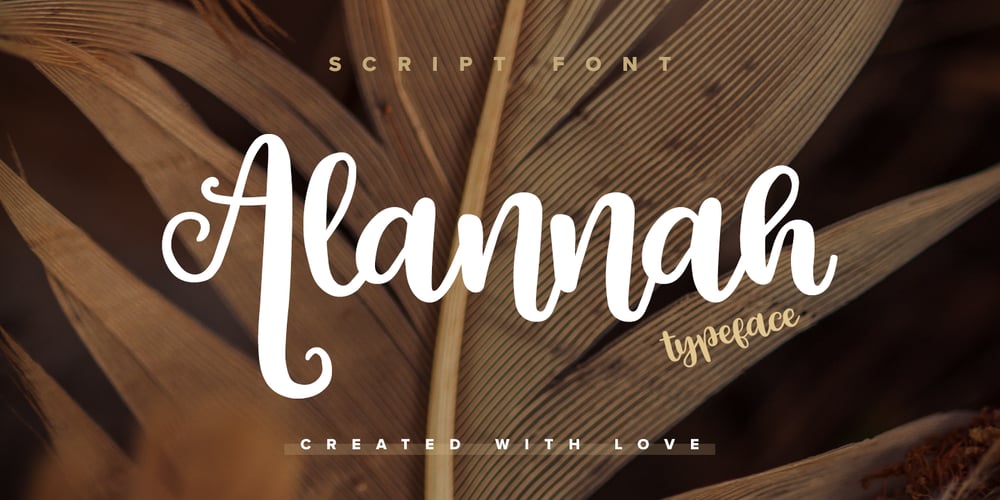
Alannah Font Family was designed by Junik Studio and published by Pixelbuddha. Alannah contains 1 styles and family package options. Our main goal was to give the font the feeling of playful joy and genuine hand-lettered appearance which can be added to any of your design projects just as easy as to pick the right font from your collection. And, as we believe, that’s exactly what it is about.